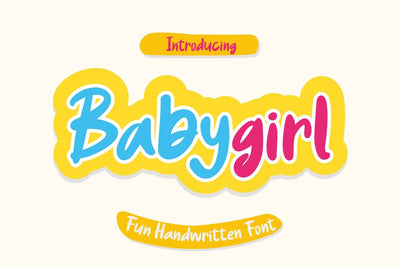
Babygirl
Introducing
Babygirl Font is a fun bold font, fresh & modern style . Babygirl Font suitable for logo, branding, greeting card, poster and any design that you create.